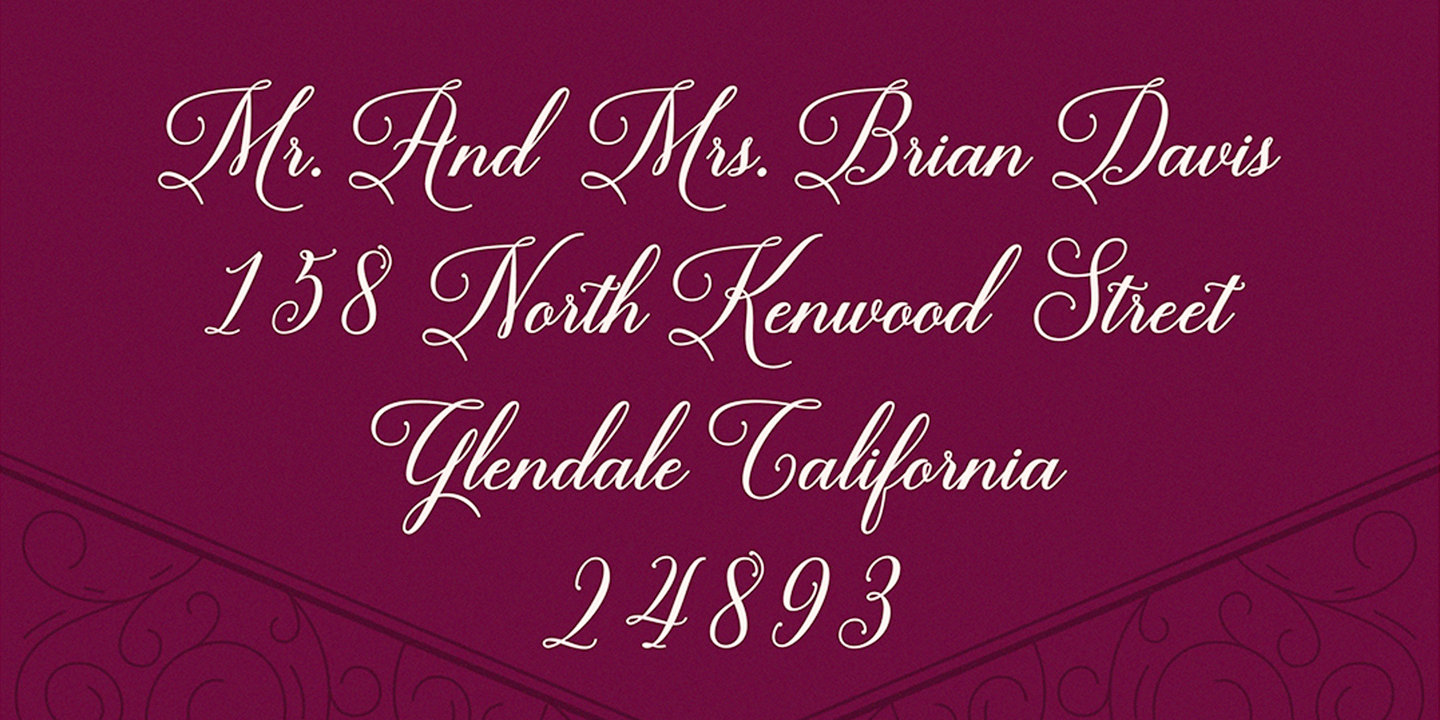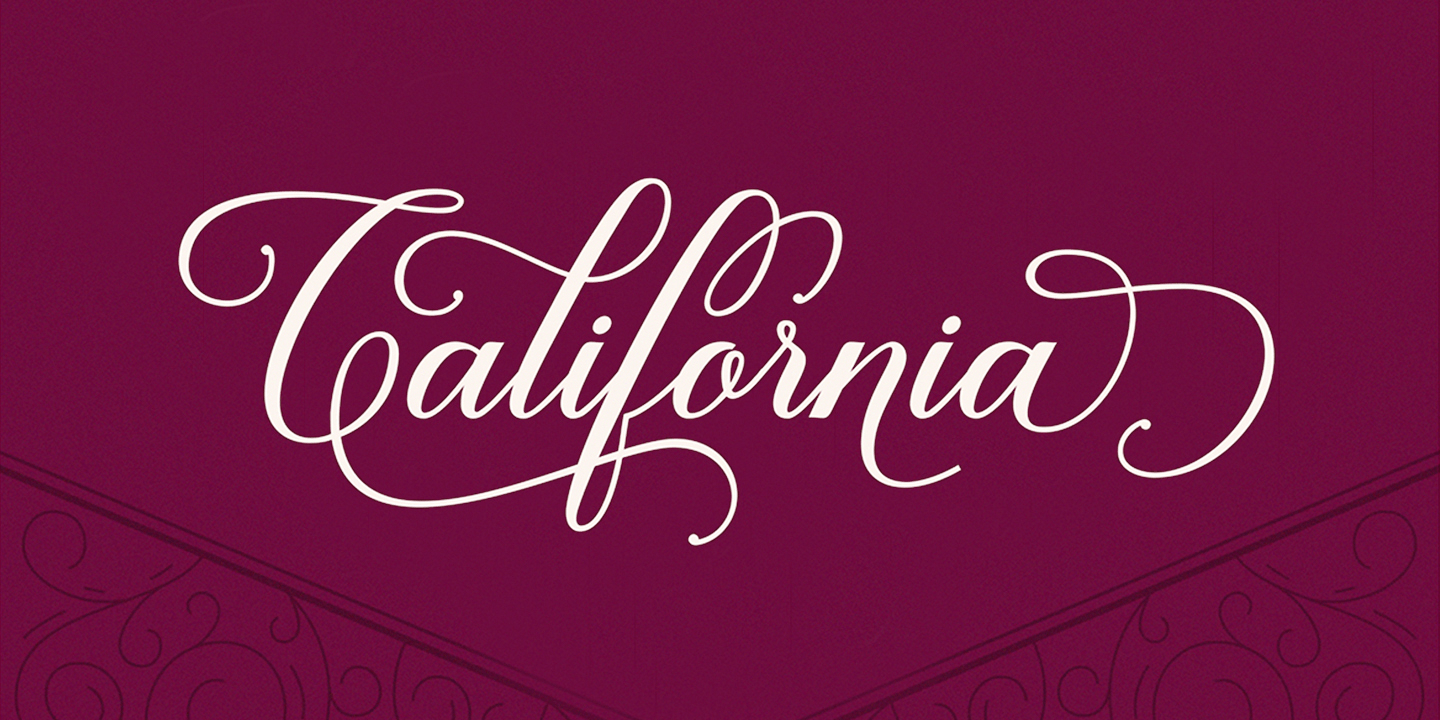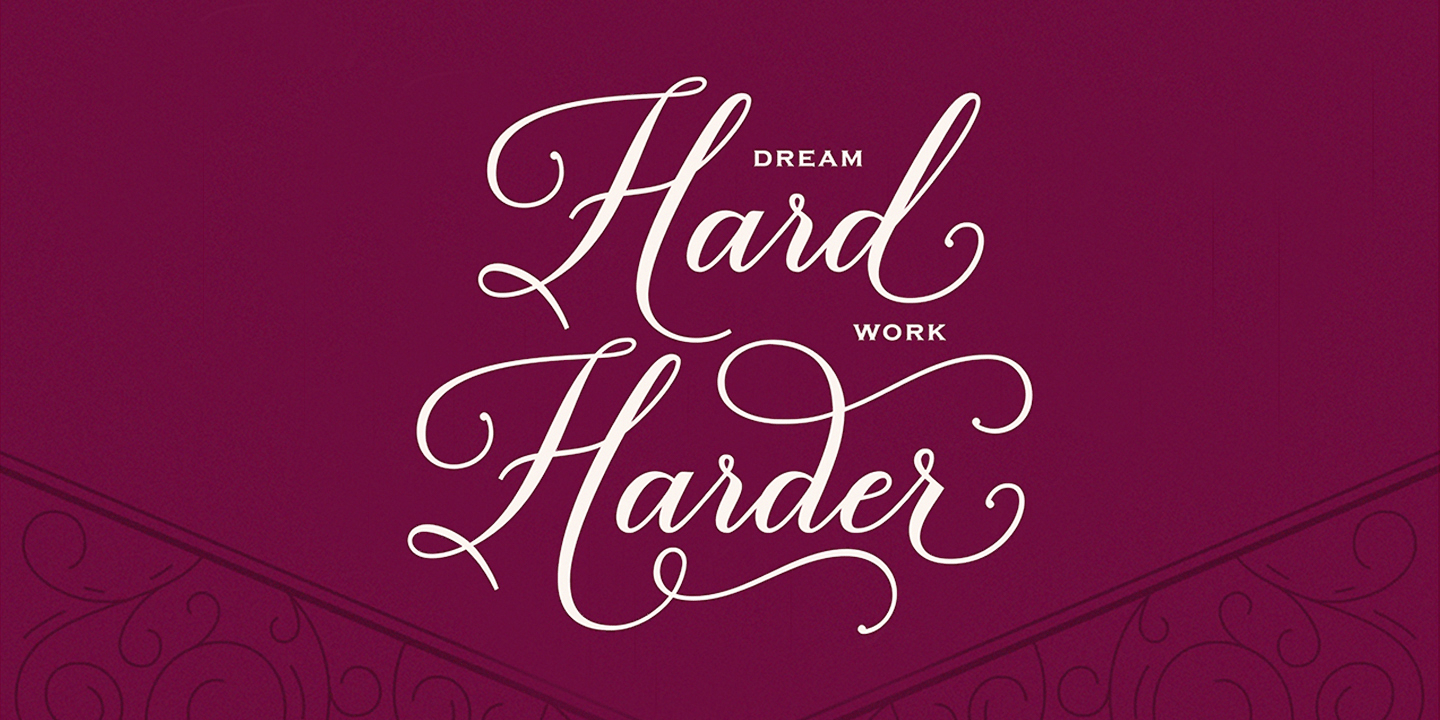
About Brenda Script
Brenda Script is a beautiful formal script, contemporary typeface with classic roots and an elegant touch. It can be used for various purposes.such as logos, wedding invitations, headings, t-shirts, letterhead, signage, lable, news, posters, badges etc.…